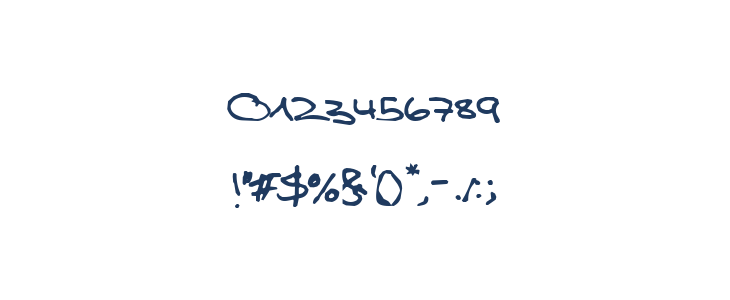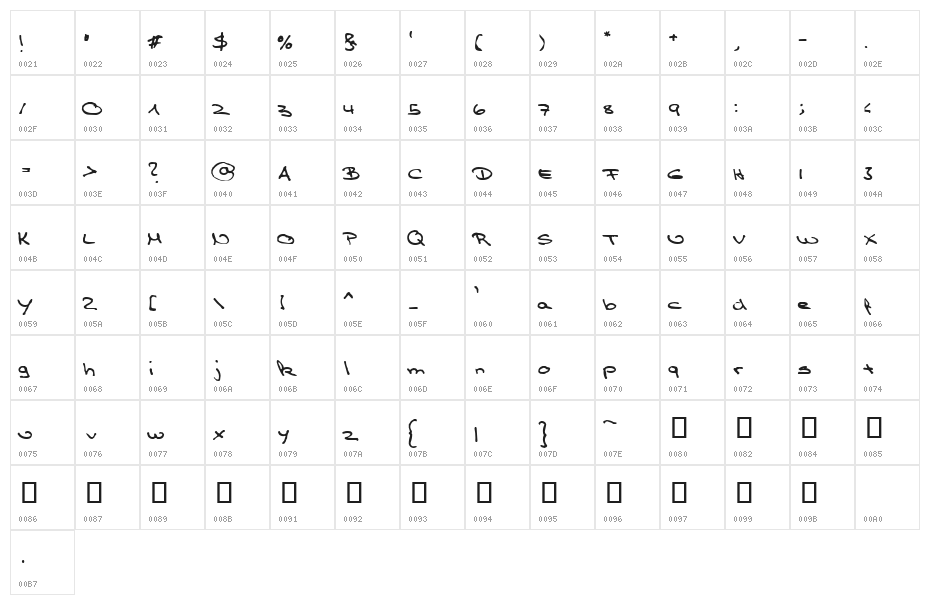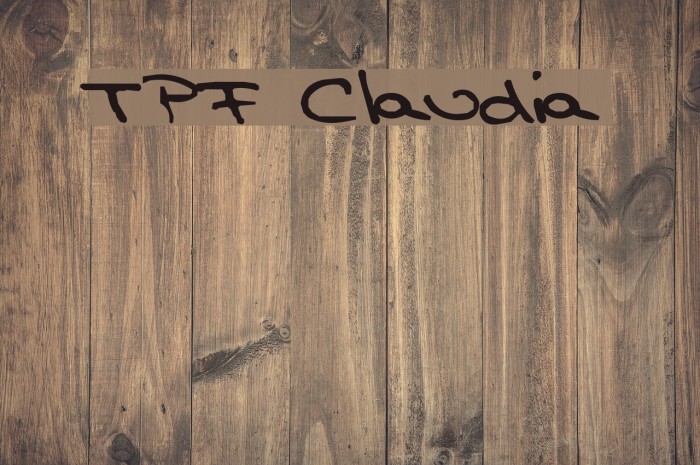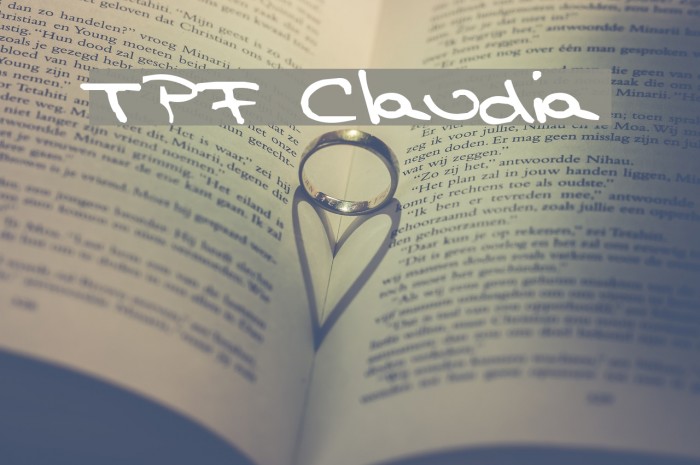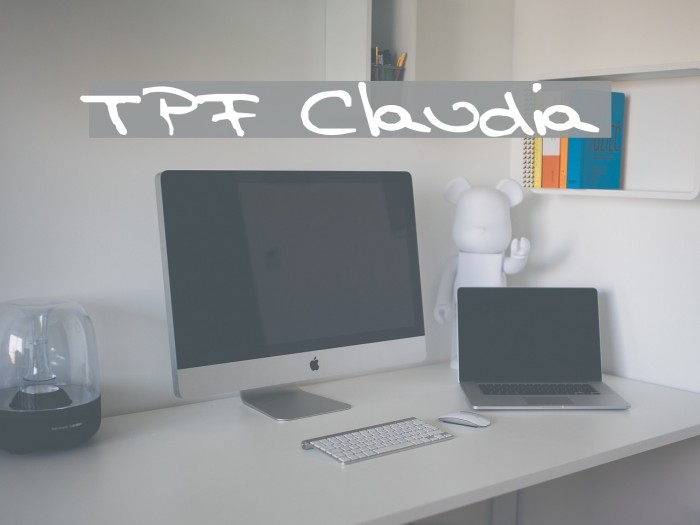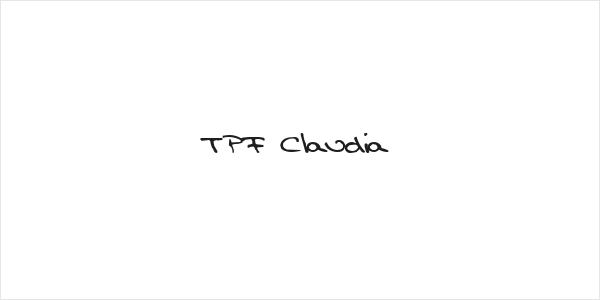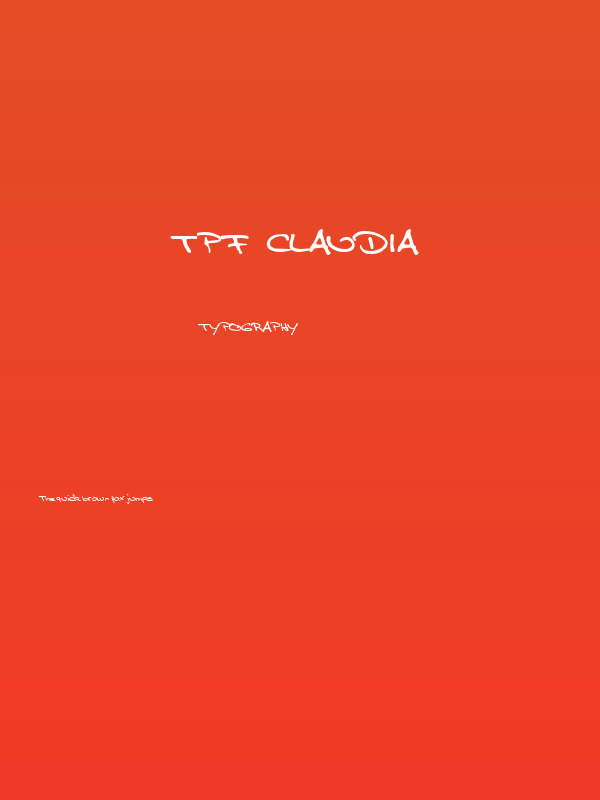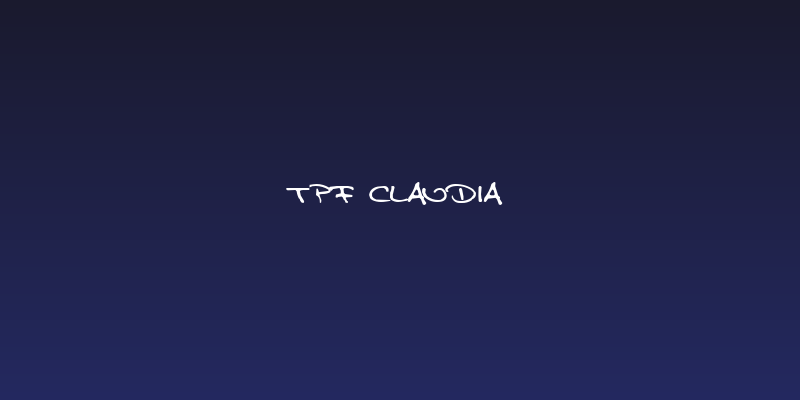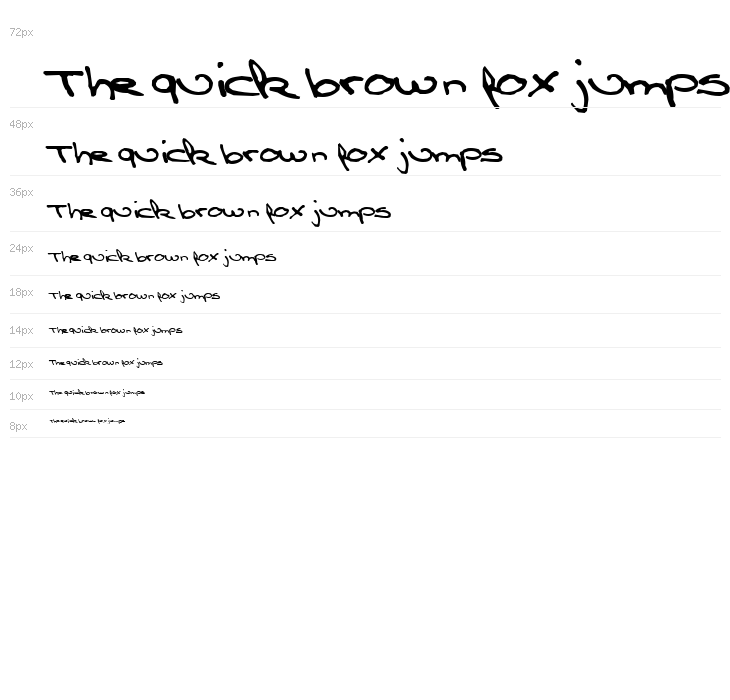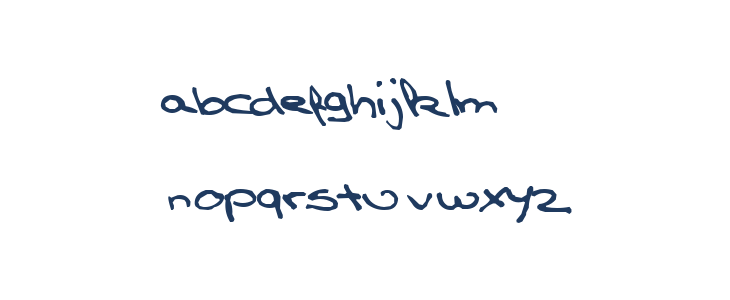
TPF Claudia Font
TPF Claudia Description
This font features a playful and informal handwritten style, characterized by its bold and slightly irregular strokes. The letters have a casual, organic flow, with varying stroke thickness that adds a dynamic and lively feel. The uppercase and lowercase letters maintain a consistent style, with rounded edges and a slight slant, giving the font a relaxed and approachable appearance. The numbers and special characters follow the same aesthetic, ensuring a cohesive look across all elements. This font is perfect for projects that require a personal touch or a creative flair.
| Overall Style | Playful, Informal |
| Use Case | Headlines, Creative projects, Informal communications |
| Proposed Projects | Ideal for greeting cards, invitations, children's books, and creative branding projects. |